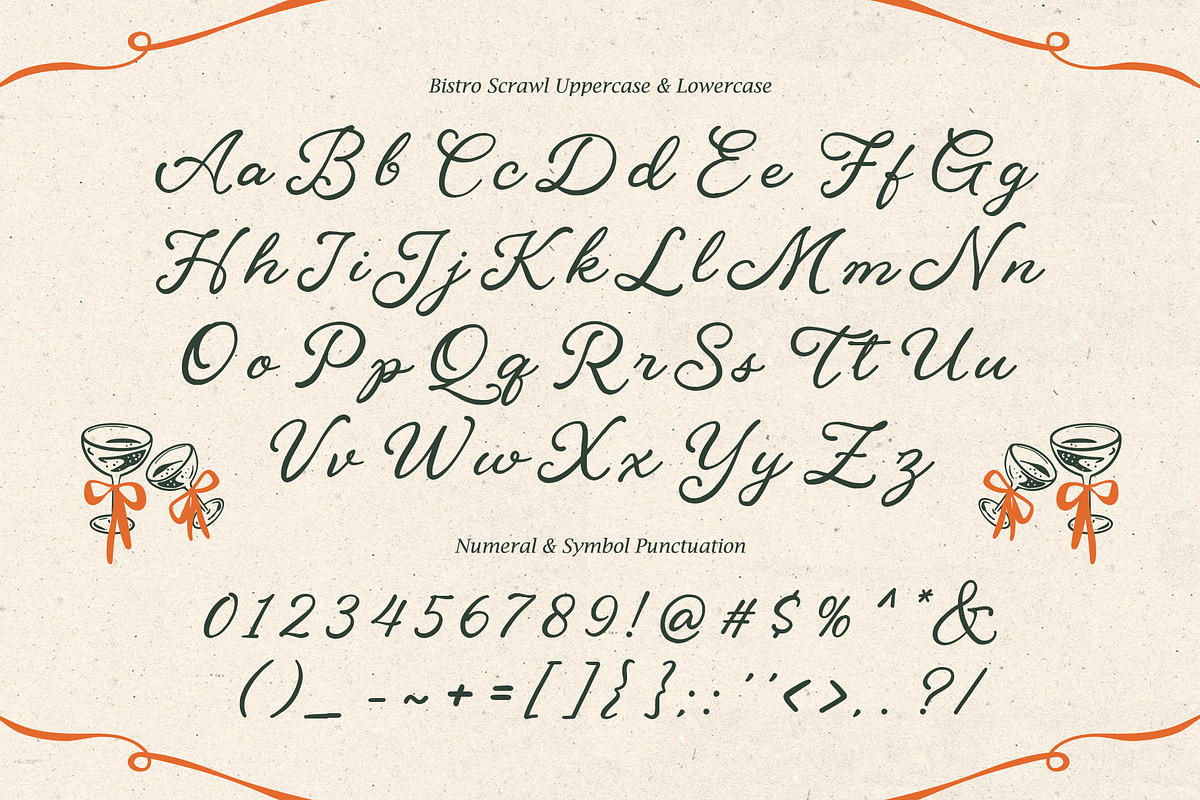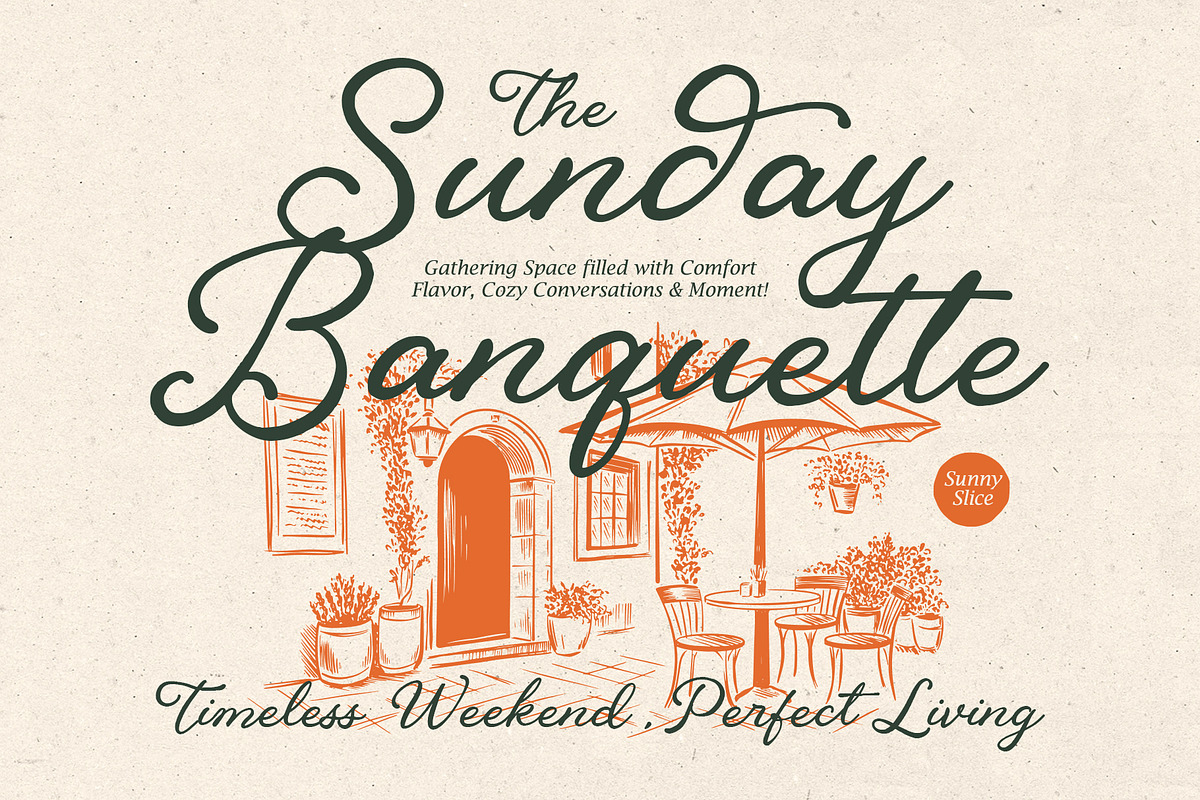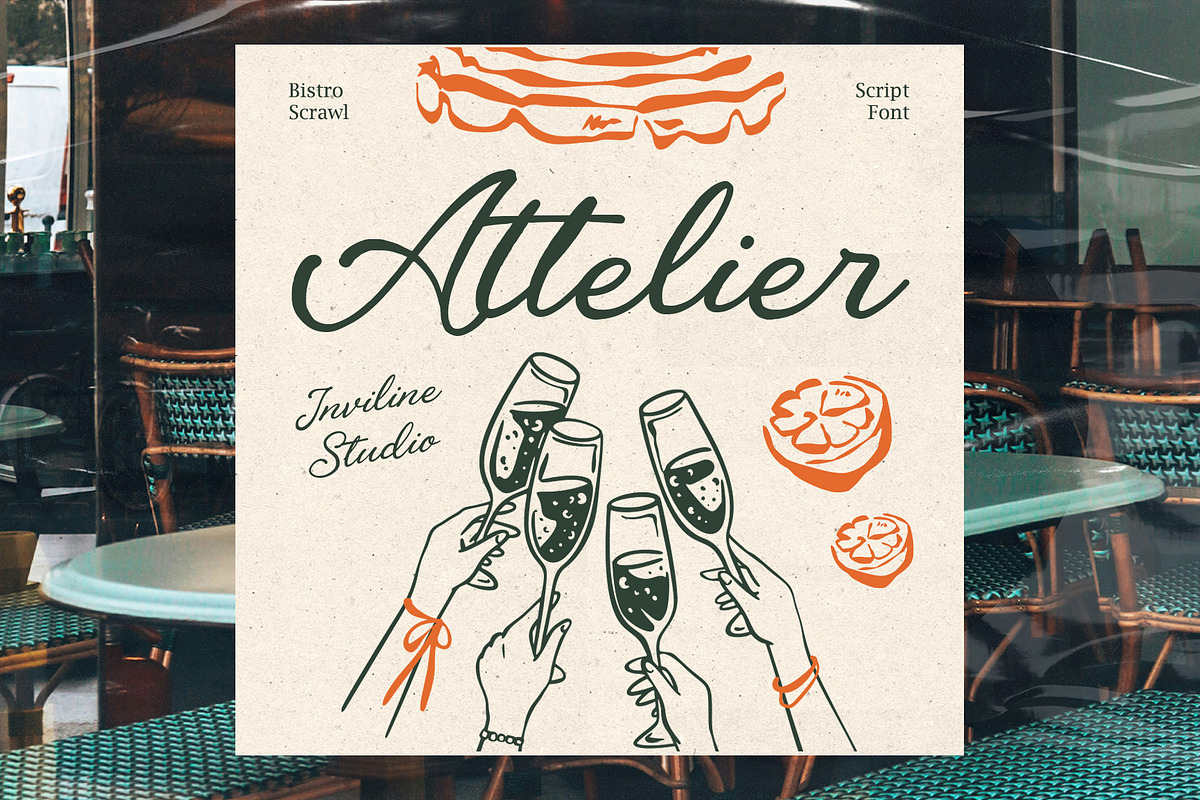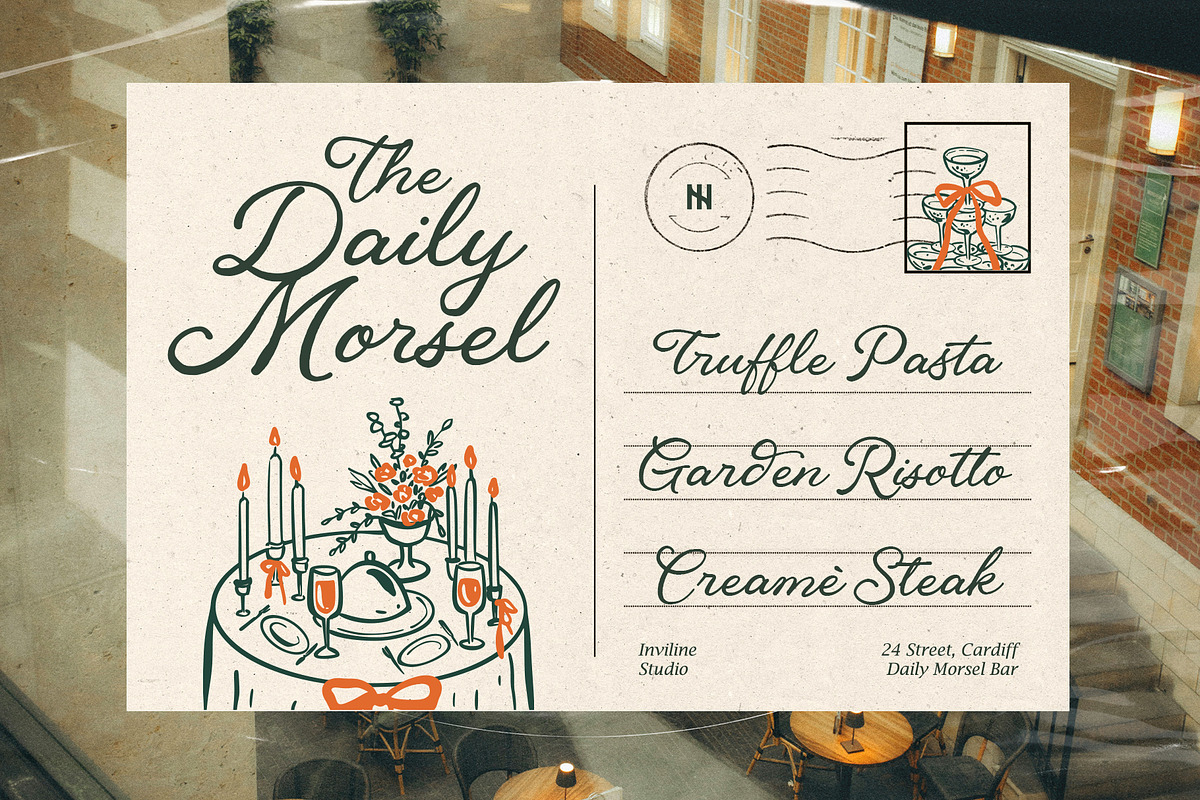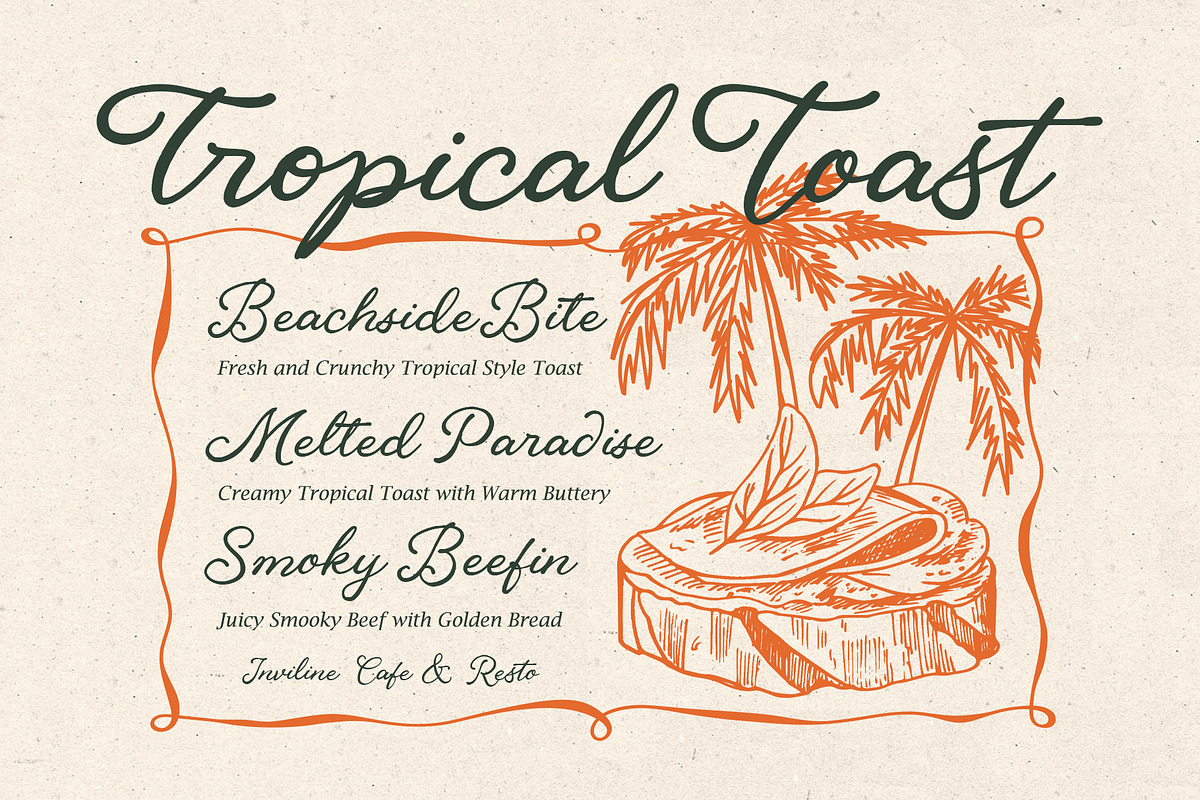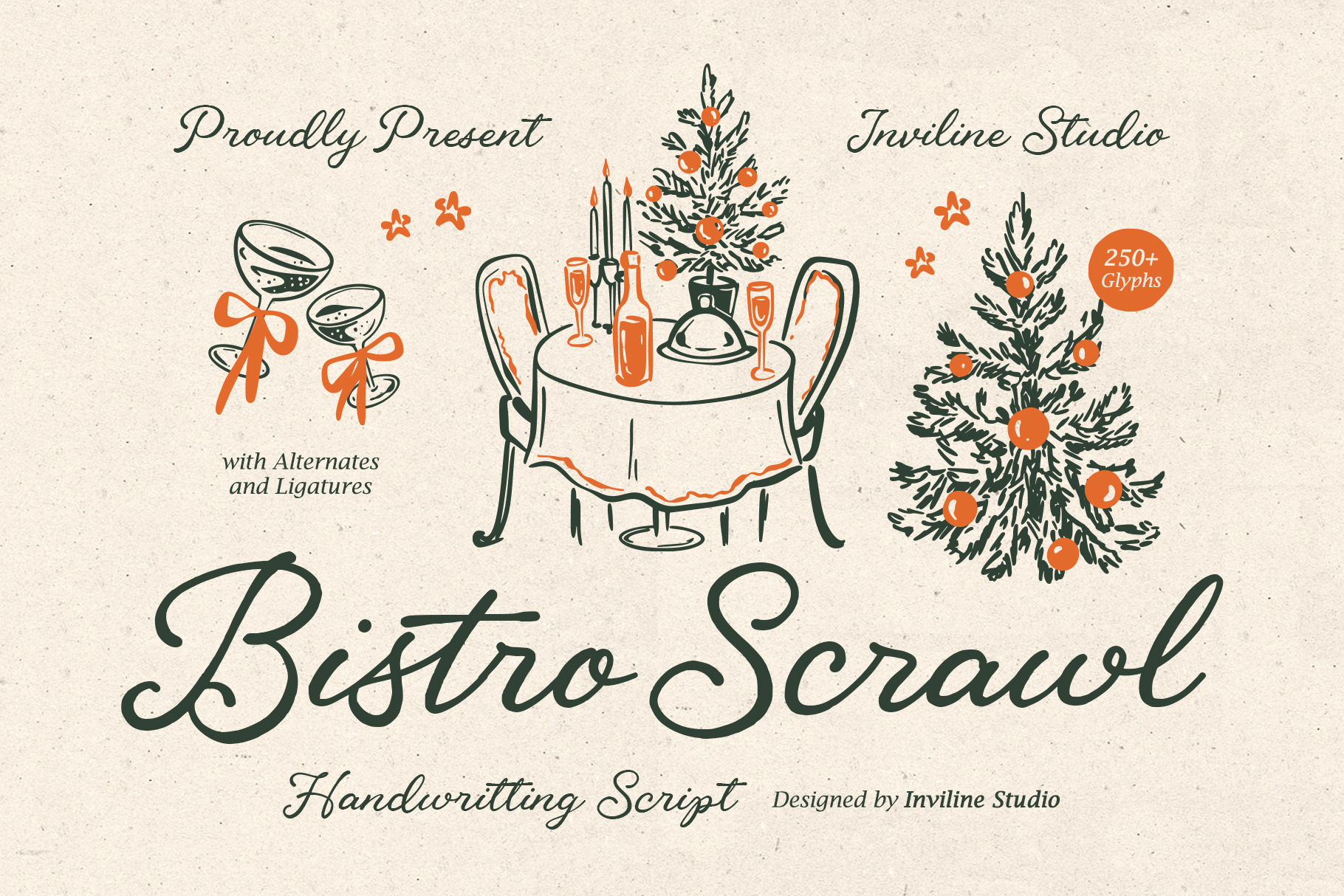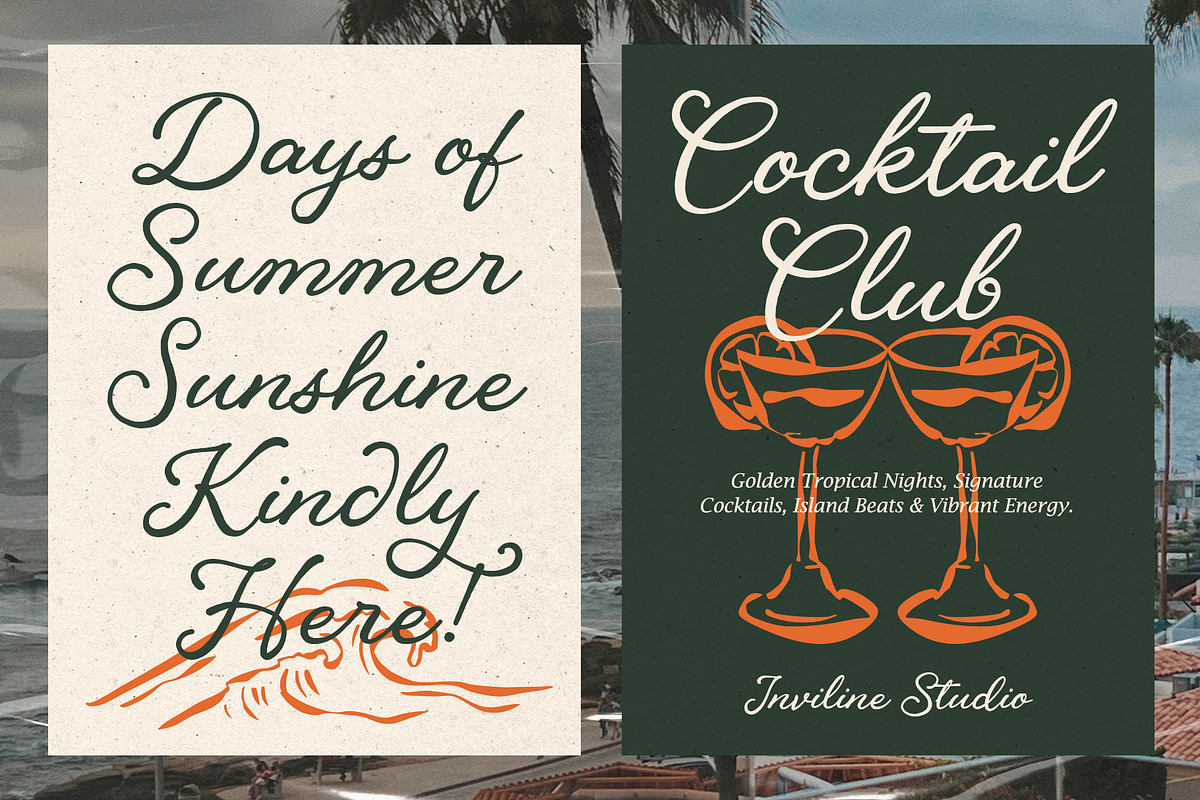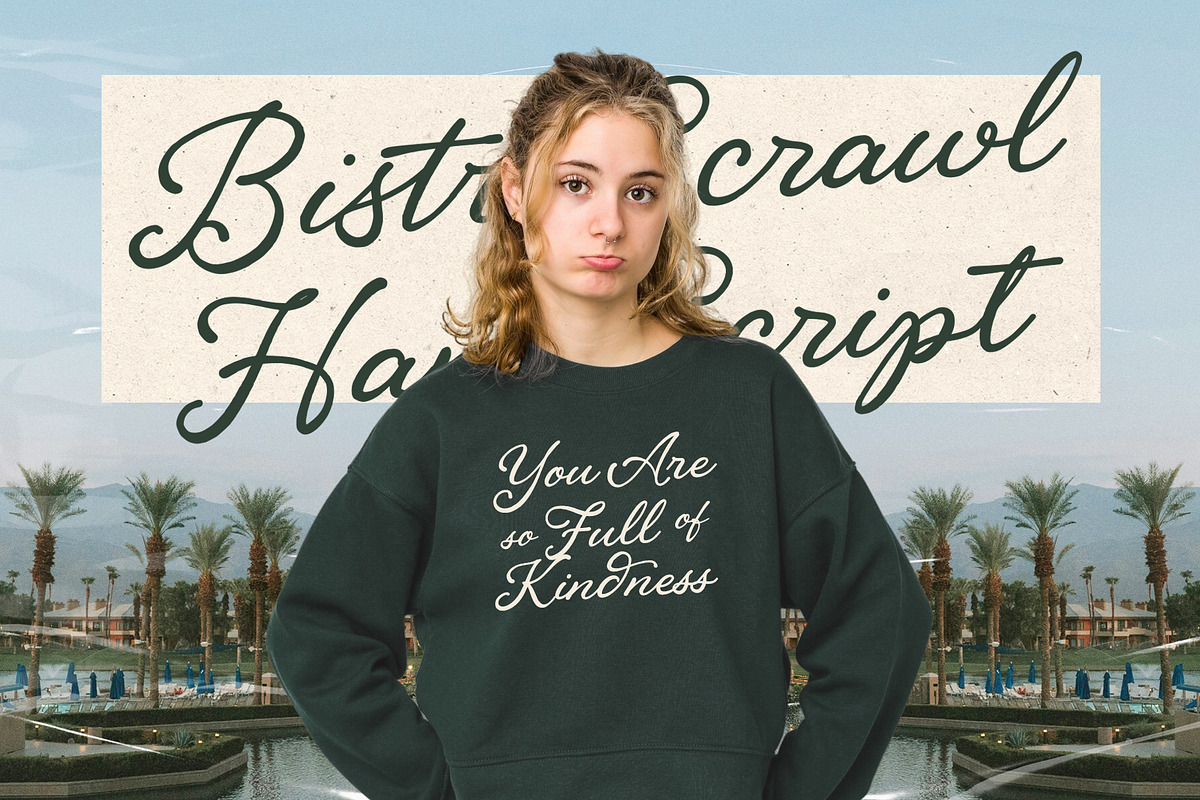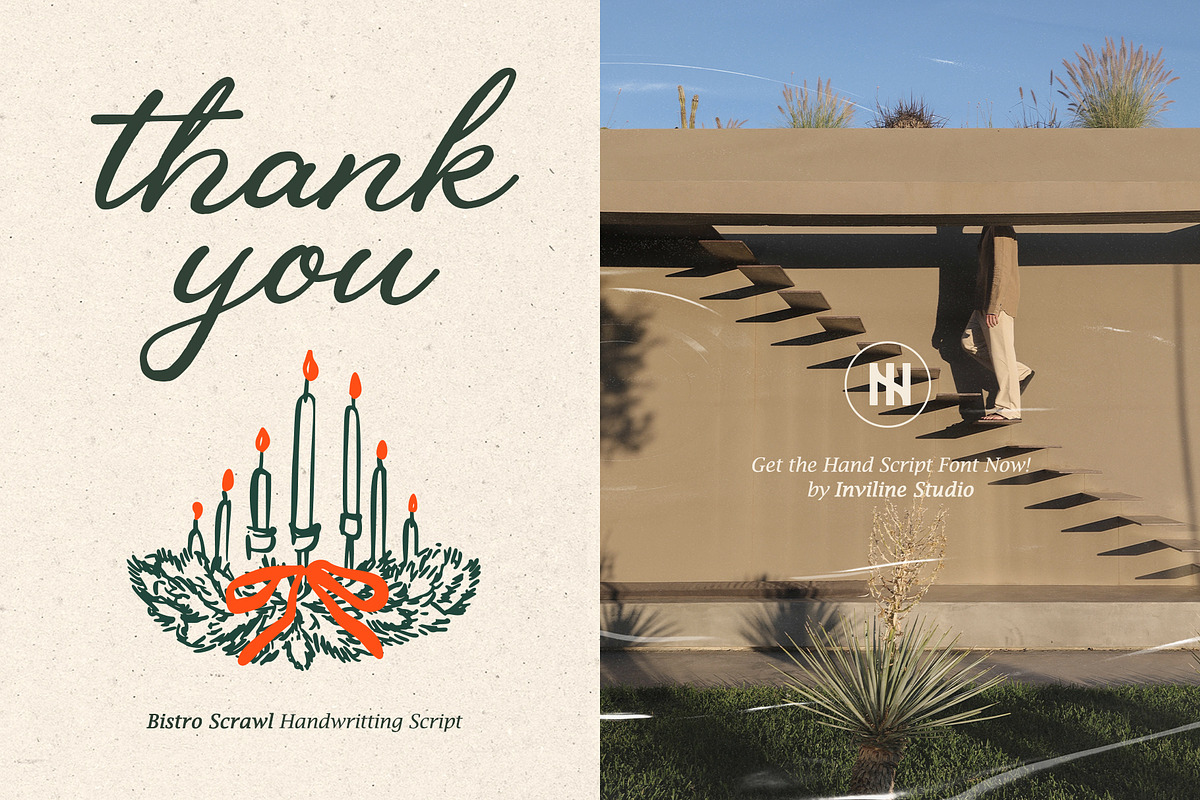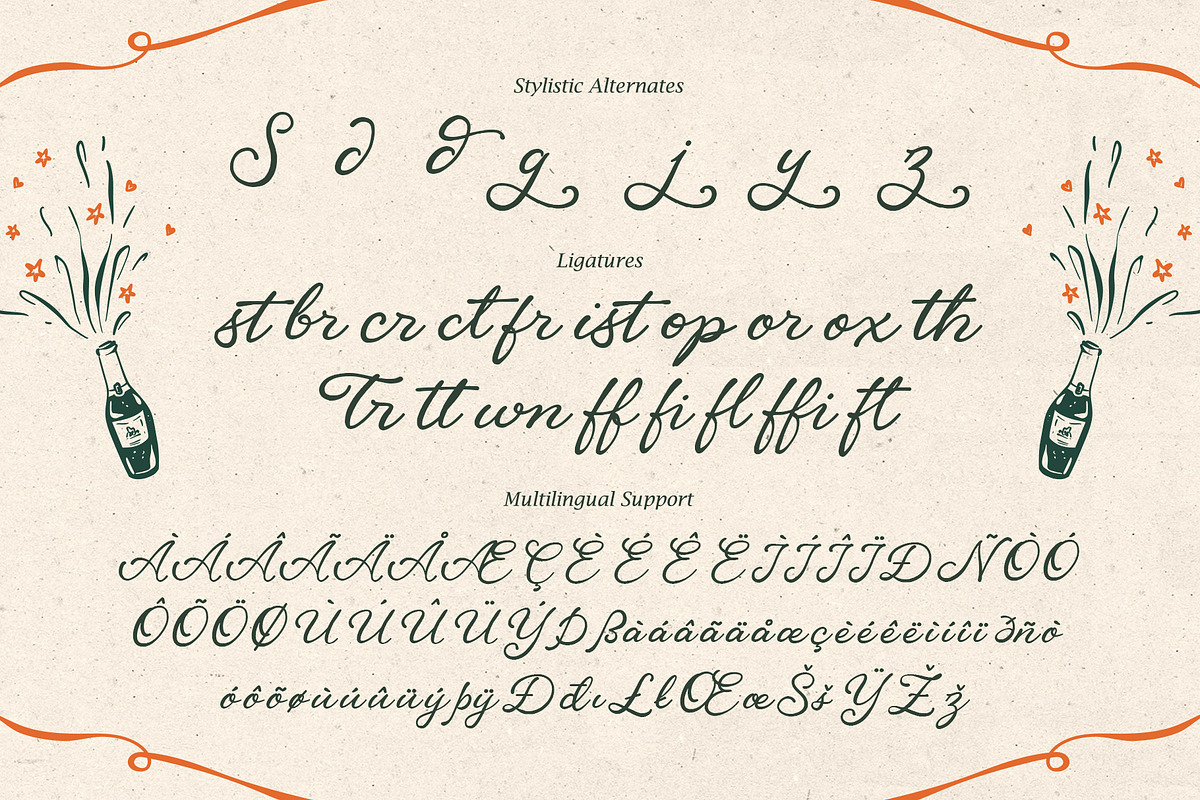
BistroScrawl Handwriting Script Font
Bistro Scrawl is a warm, flowing handwriting script font inspired by the charm of café culture, artisan menus, and handwritten notes. Designed for creatives who want authentic personality in their work, perfect for branding, packaging, and wedding stationery. With 250+ glyphs, ligatures, and stylistic alternates, it gives every project a genuine human touch.
Bistro Scrawl is a handwritten script font that captures the natural elegance of pen on paper: warm, expressive, and full of character. Inspired by bistro signs, vintage cafe menus, and artisan handwriting, this font brings a natural, human feel to both digital and print designs.
Whether you're building a restaurant brand, designing wedding invitations, or adding personality to product packaging, Bistro Scrawl provides a warmth that's impossible to fake with generic fonts.
250+ glyphs total
Stylistic Alternates for select characters: S, J, I, g, j, Y, Z, L, Z
18 Ligature pairs: st, br, cr, ct, fr, ist, op, or, ox, th, Tr, tt, wn, ff, fi, fl, ffi, ft
Full uppercase & lowercase alphabet
Complete numeral set (0–9)
Punctuation & symbol set
Multilingual support: Western European characters with diacritics (À, Á, Â, Ç, É, Ñ, Ø, Ü, etc.)